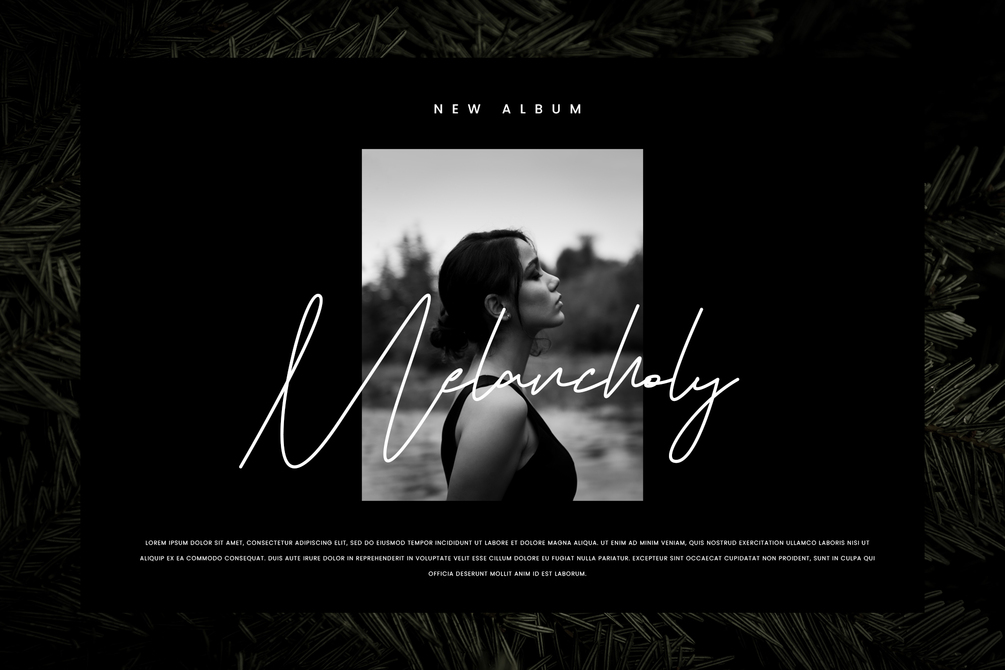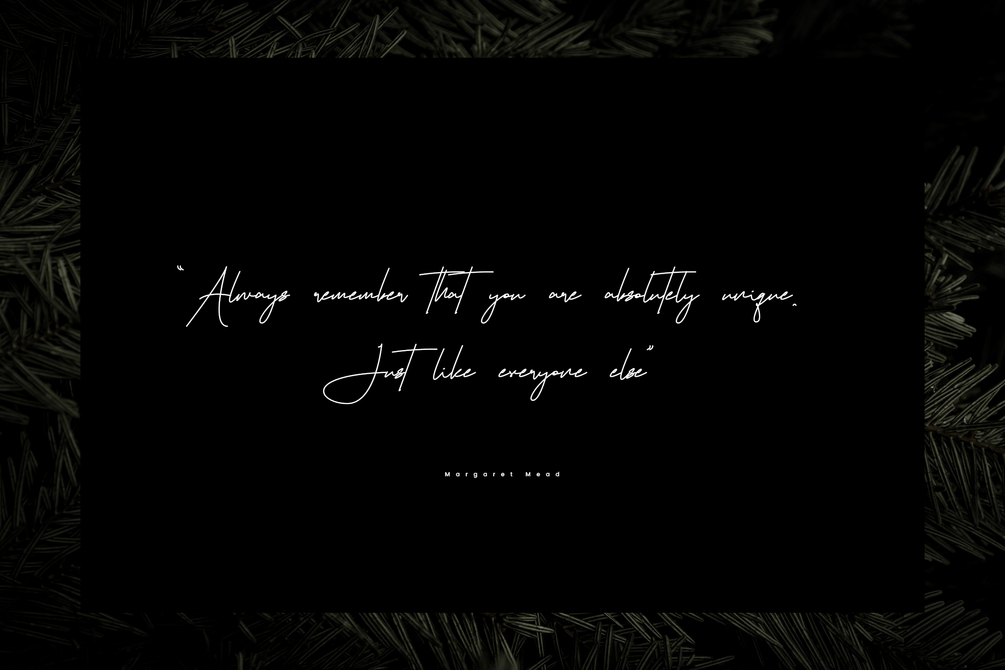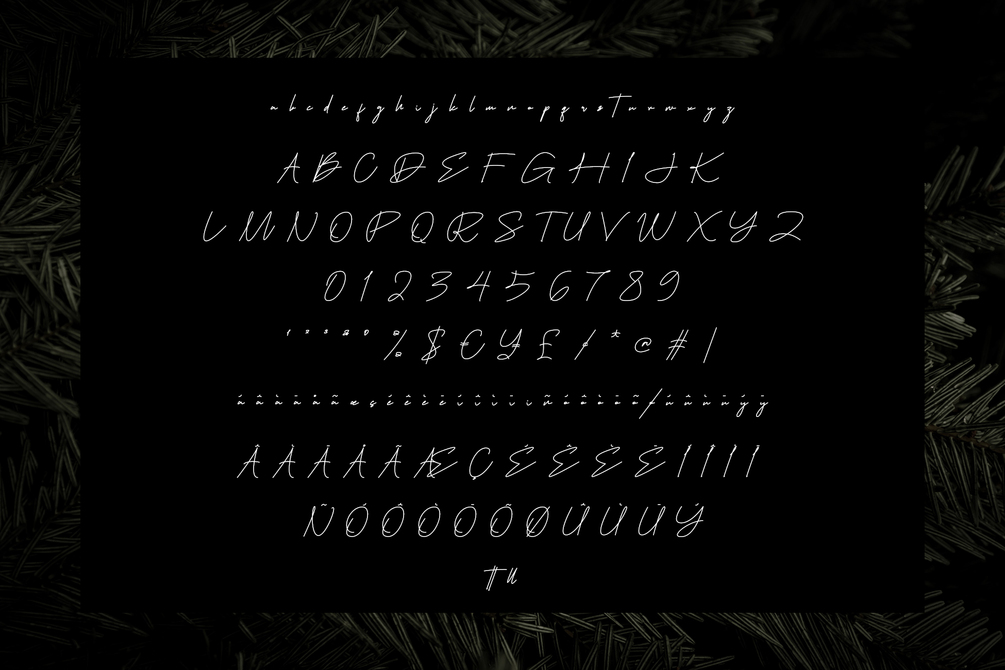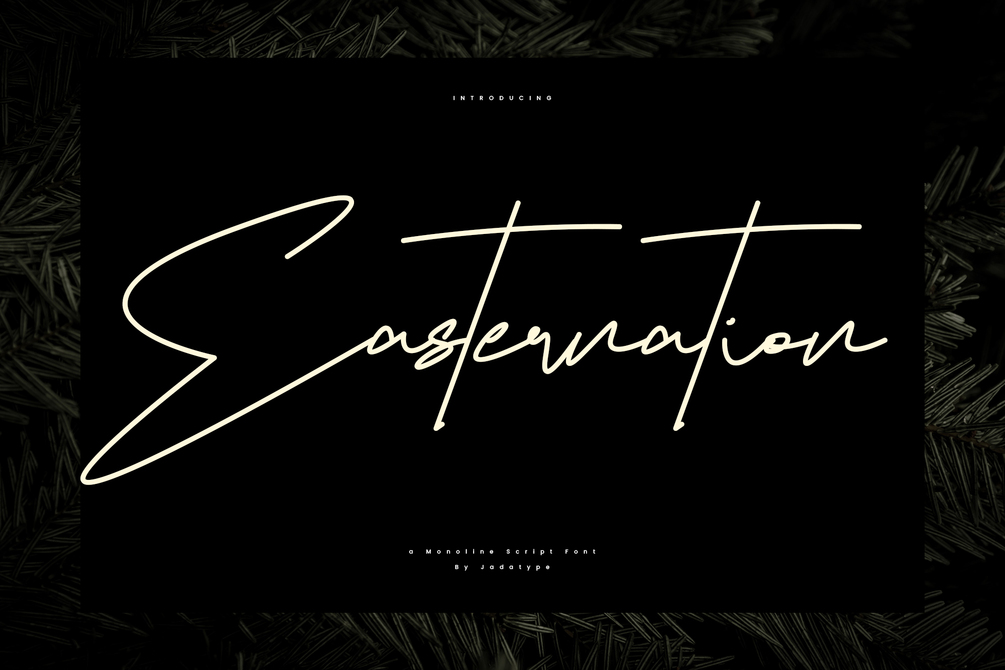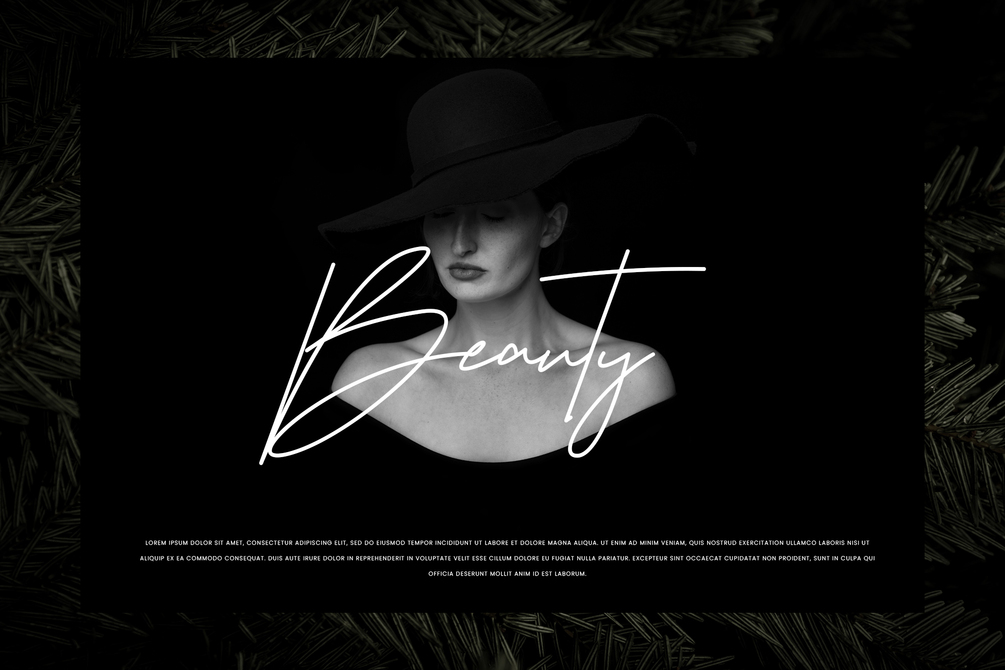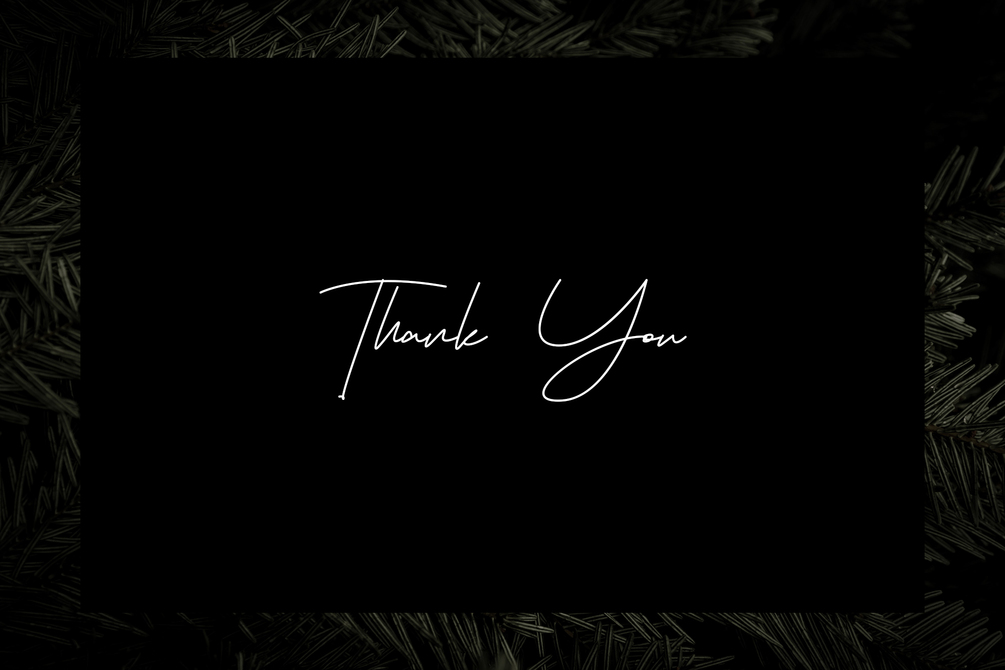
Easternation Font
Easternation is a font with a stylish script monoline. suitable for photography, social media, music cover, branding, products, handwritten, and so on. contains standard English letters, numbers, punctuation, and several accents that support multilingualism.